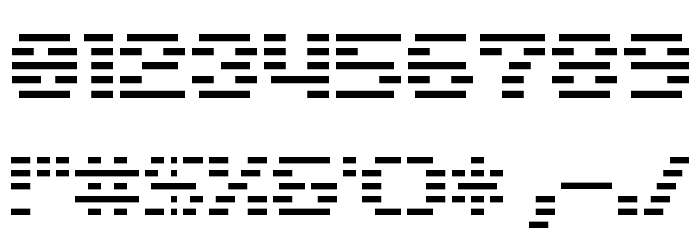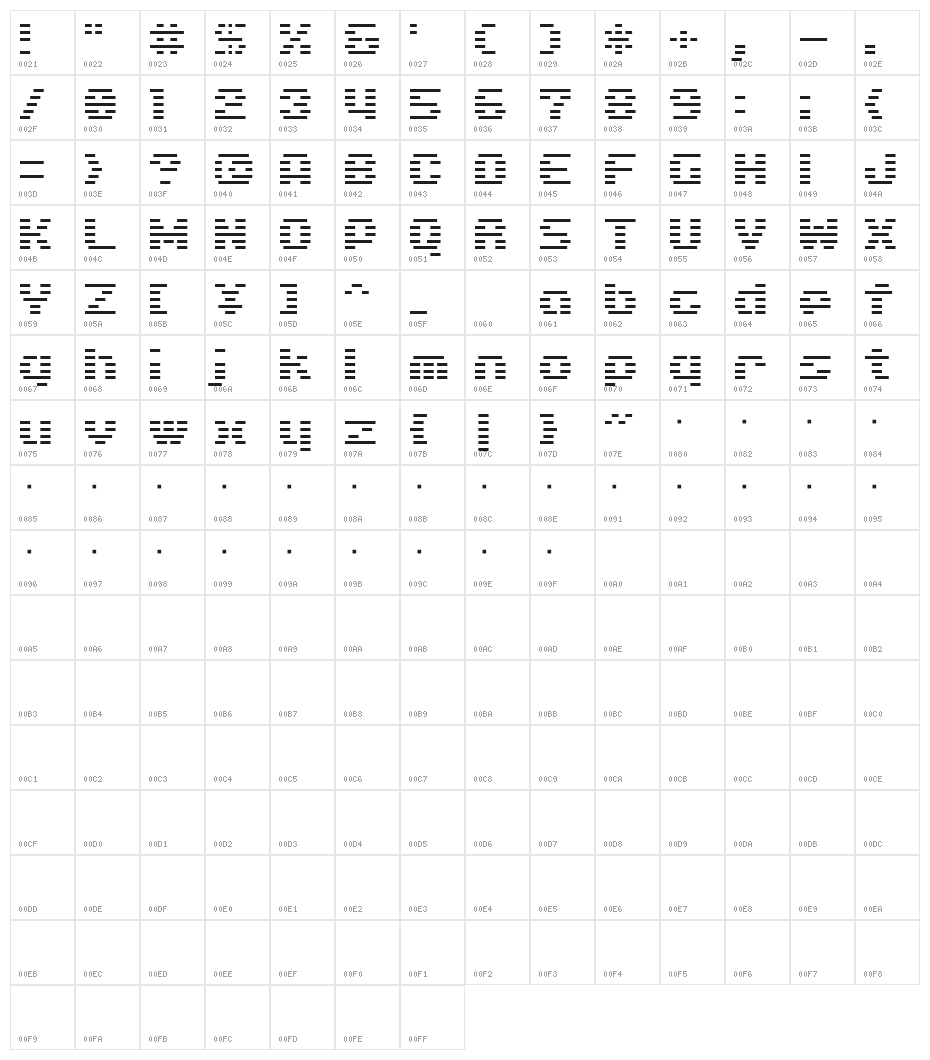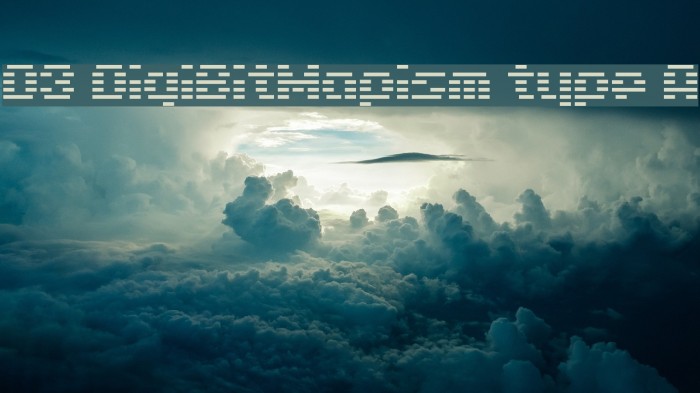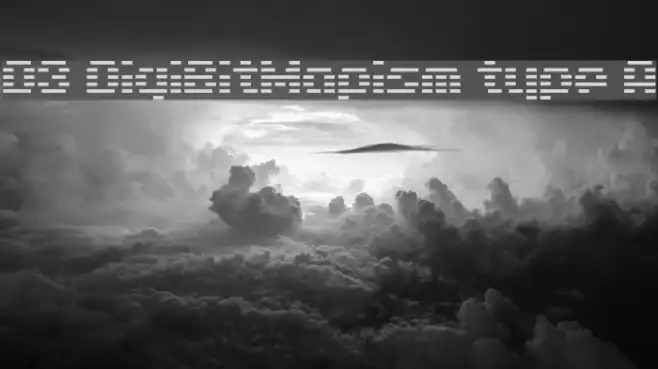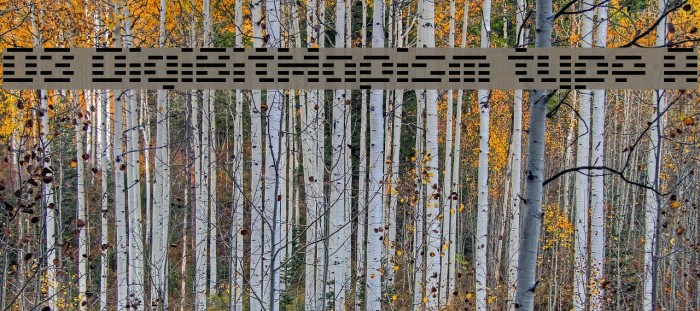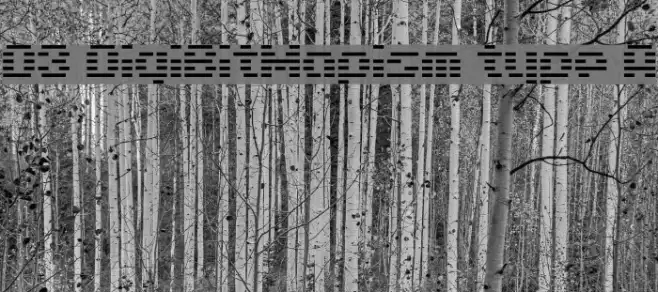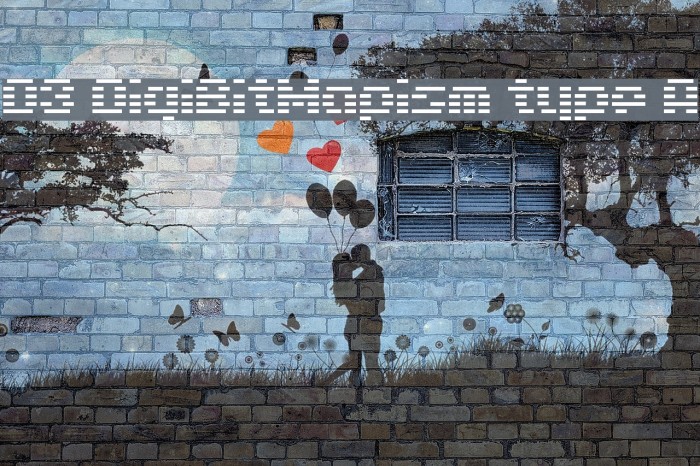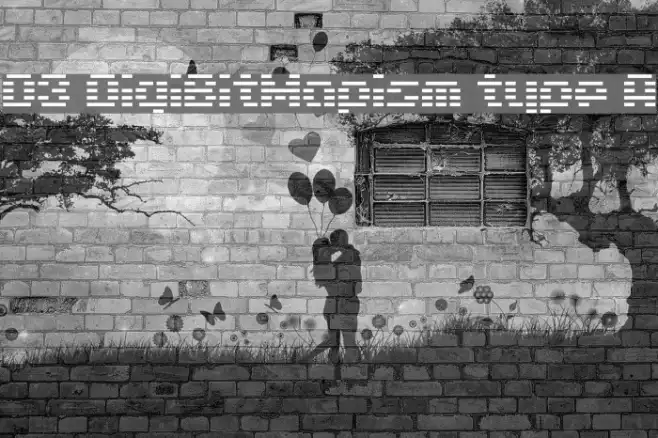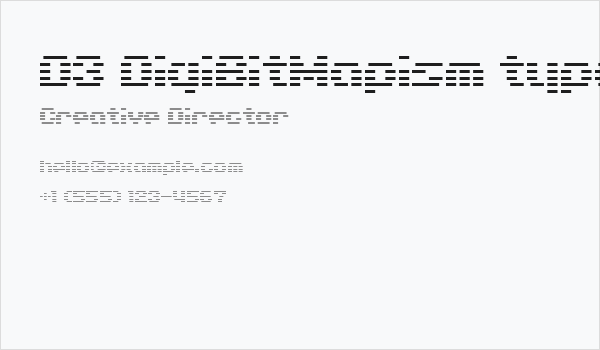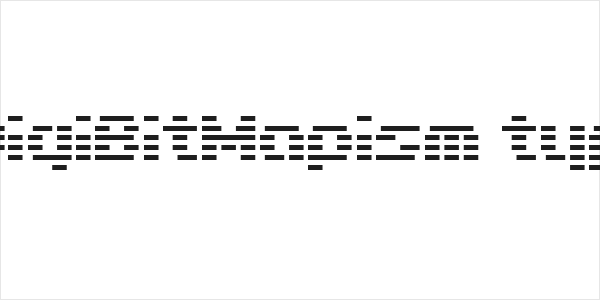
D3 DigiBitMapism type A Font
D3 DigiBitMapism type A Description
This font features a distinctive digital and pixelated style, reminiscent of early computer displays and dot matrix printers. Each character is composed of a grid of small, square dots, creating a blocky and geometric appearance. The uppercase and lowercase letters maintain a consistent height, contributing to a uniform look. The numerals and special characters are designed with the same pixelated structure, ensuring a cohesive visual theme throughout. This font's unique aesthetic makes it ideal for projects that require a retro or tech-inspired feel.
| Use Case | Logos, Headlines, Digital Art |
| Proposed Projects | Ideal for digital art, retro-themed designs, video game graphics, and tech-related branding. |